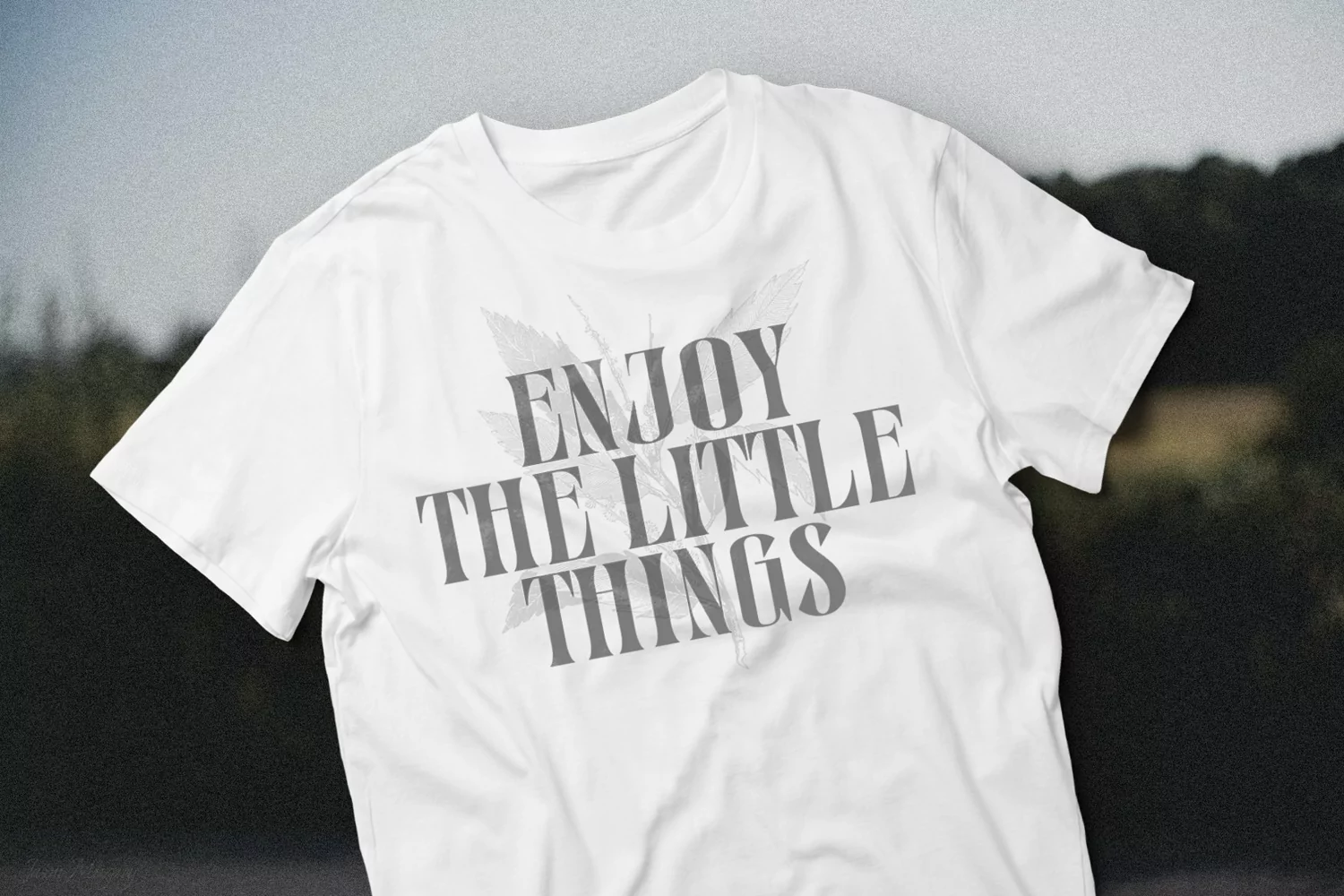
Buchender is a display font with an elegant flare serif. It is well equipped to provide clear solutions for a variety of situations and settings such as logo, titling, display and headlines.